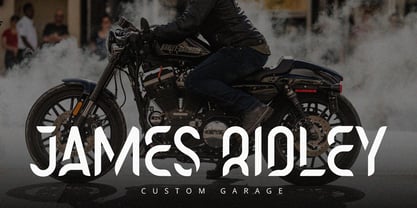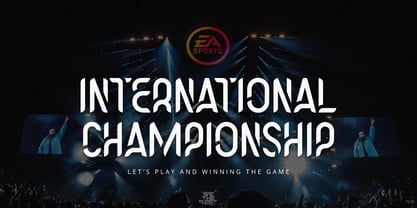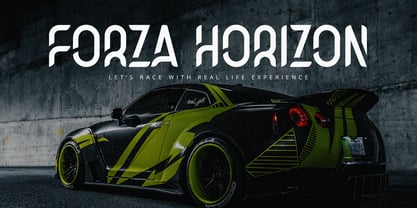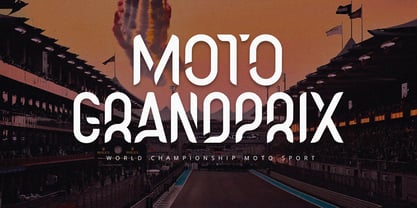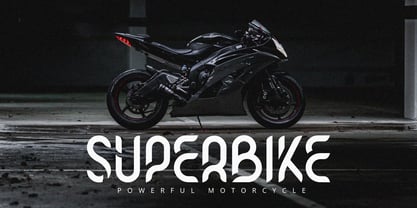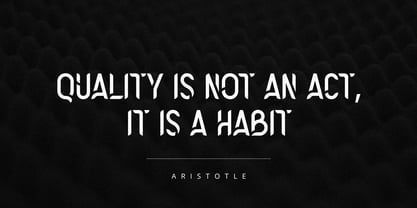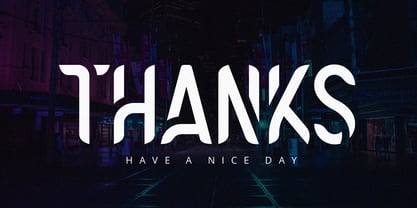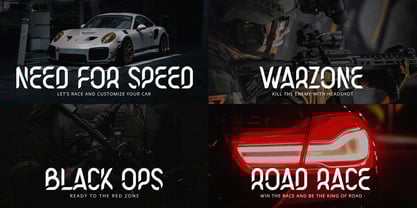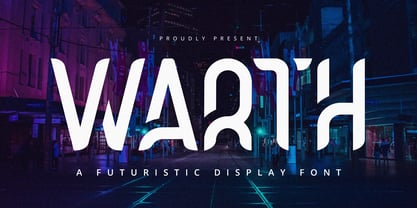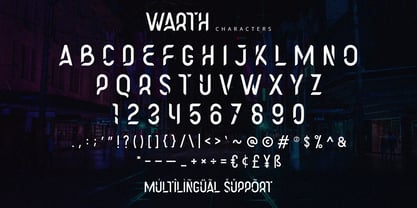
Warth
by Alpaprana
The Warth Font Family was designed by Nadia Salsabila and published by Alpaprana. Warth contains 1 styles.
Warth is a futuristic display font with modern and sporty feels. It will be perfectly used for Branding, Logo Design, Lettering, Logotype, Clothing, Poster, magazine, packaging, posters, shopping bags, t-shirts, book covers, photography, special events and other design project. I hope you enjoy this font. If you have any questions please don't hesitate to drop me a message :)